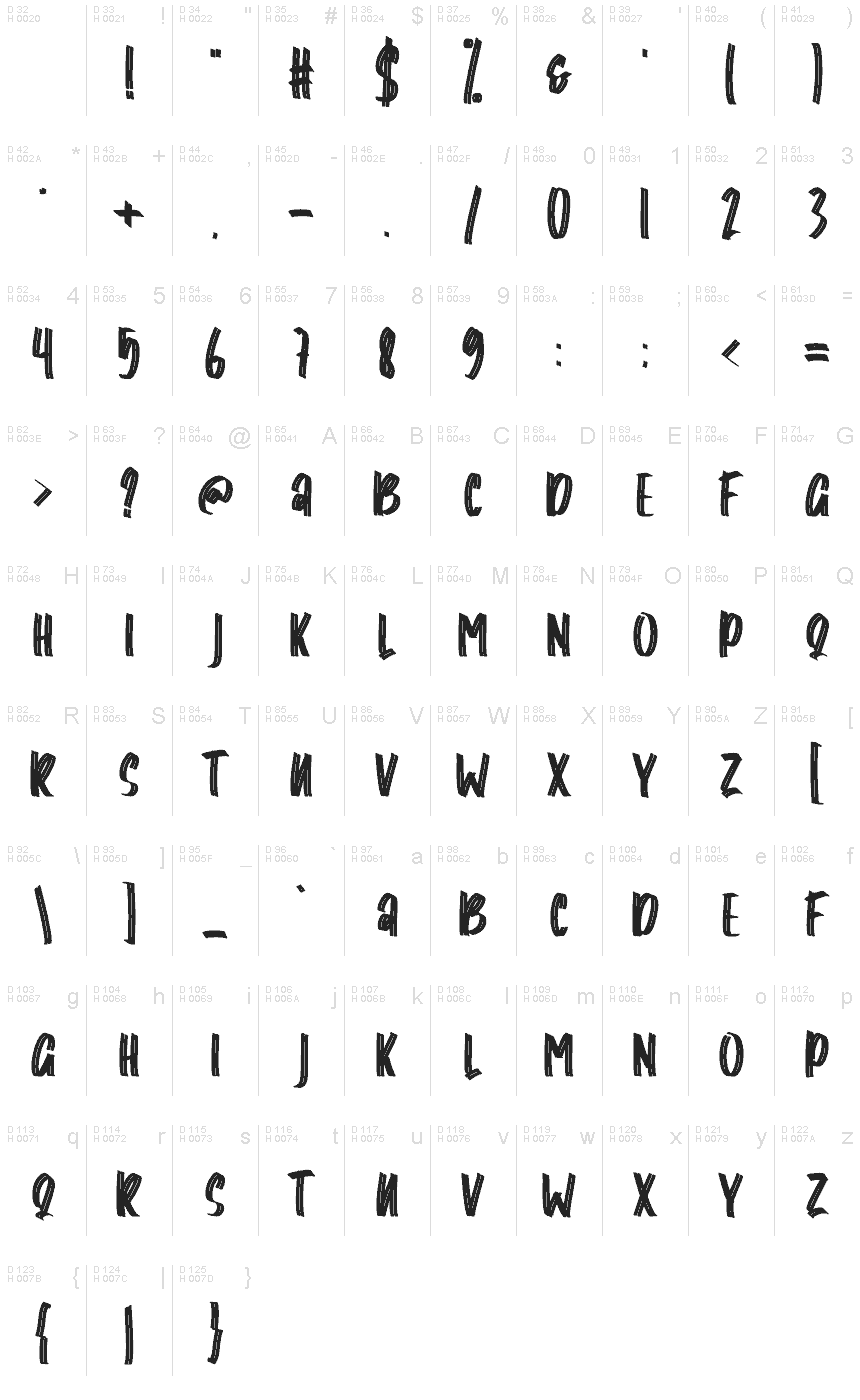
Barlaze
Barlaze font by Skiiller Studio is a free brush font that features energetic modern graffiti influences. This condensed bold font is highly expressive, and it showcases a hand-drawn urban look. Casual and slightly artsy, the typography keeps a harmonious alignment between letters, which increases its readability.